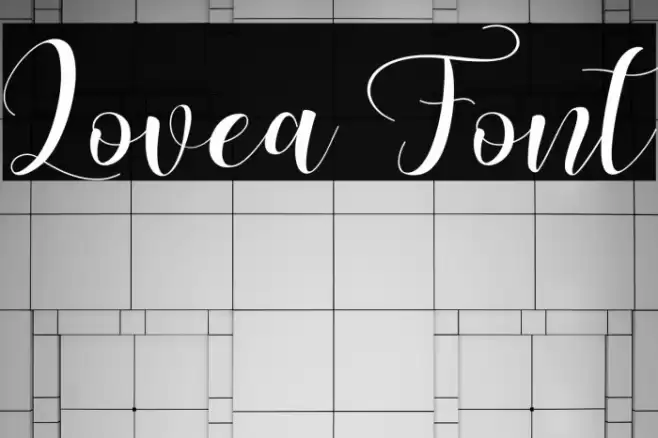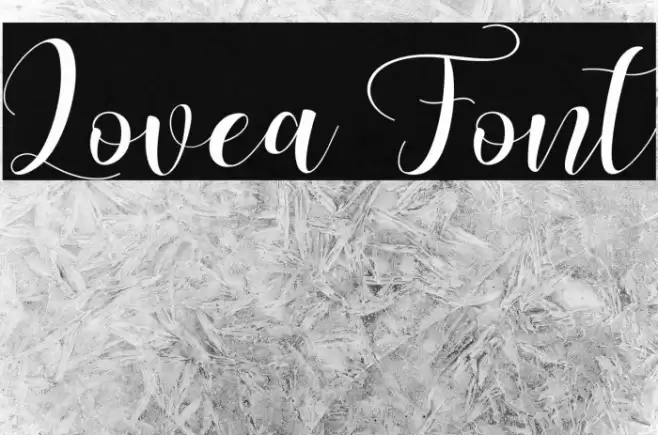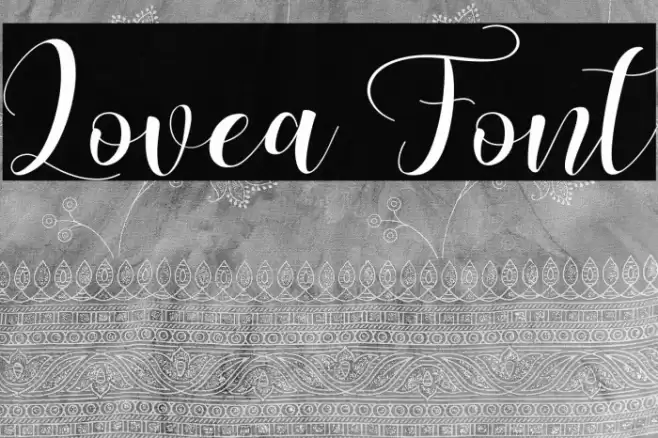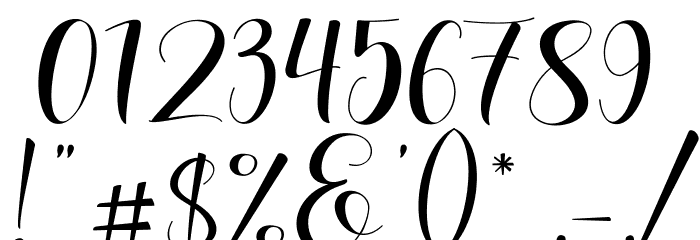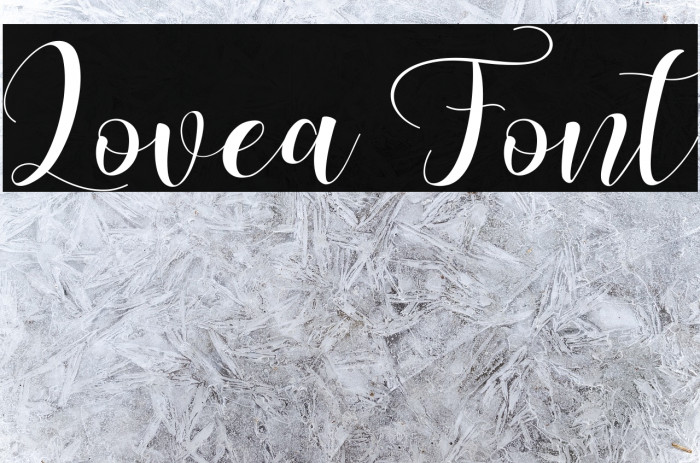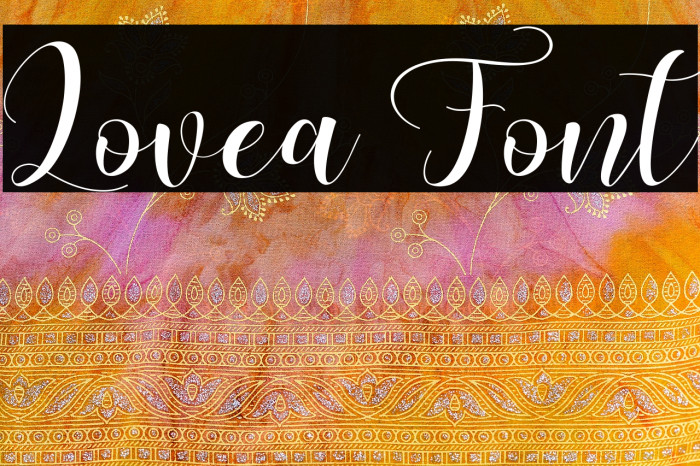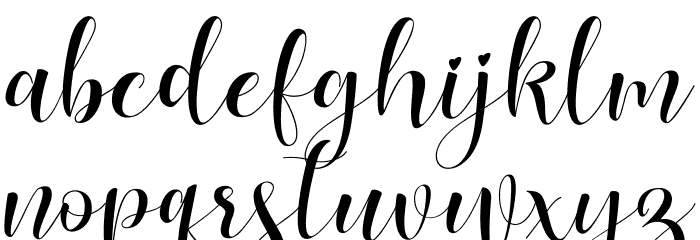
Lovea Font
Lovea Description
This elegant script font features a flowing, cursive style with graceful loops and swashes. The uppercase letters are particularly ornate, with sweeping ascenders and descenders that add a sense of movement and sophistication. The lowercase letters maintain a consistent style, offering a harmonious blend of curves and lines. Numbers and special characters are designed to match the overall aesthetic, ensuring a cohesive look across all text. The font's high contrast between thick and thin strokes enhances its readability while maintaining its decorative appeal.
An elegant script font with flowing, cursive style and high contrast strokes from Uncategorized fonts.
- Overall Style: Elegant, Decorative